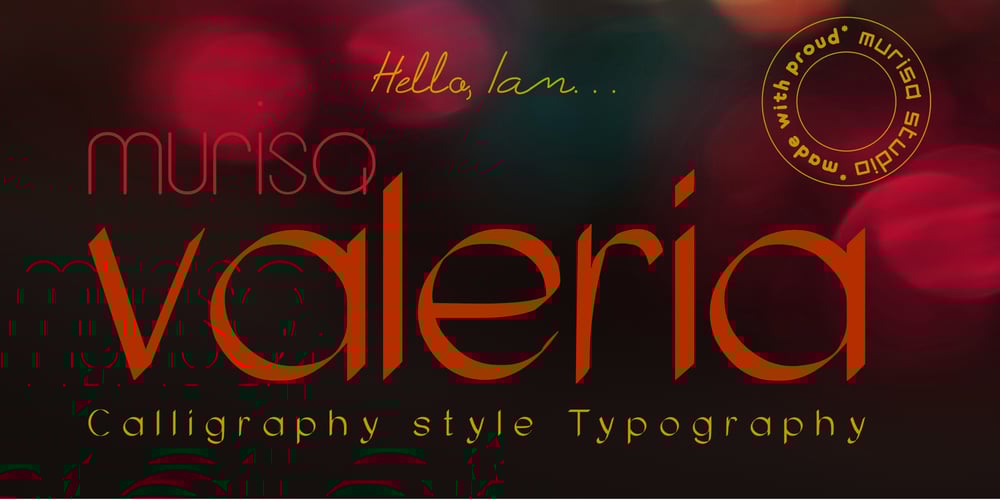
Murisa Valeria
Murisa Valeria font
Murisa Valeria Font Family was designed by Lili and published by Murisa Studio. Murisa Valeria contains 4 styles and family package options. To start this year, we present a beautiful and attractive font. Font inspired by calligraphy strokes in the Middle East. Murisa Valeria is a beautiful font. With care and patience, we created and processed the font with a deep artistic effect. We believe that the fonts we create have high appeal. We make it with all our heart. Murisa Valeria is a font that you really deserve.